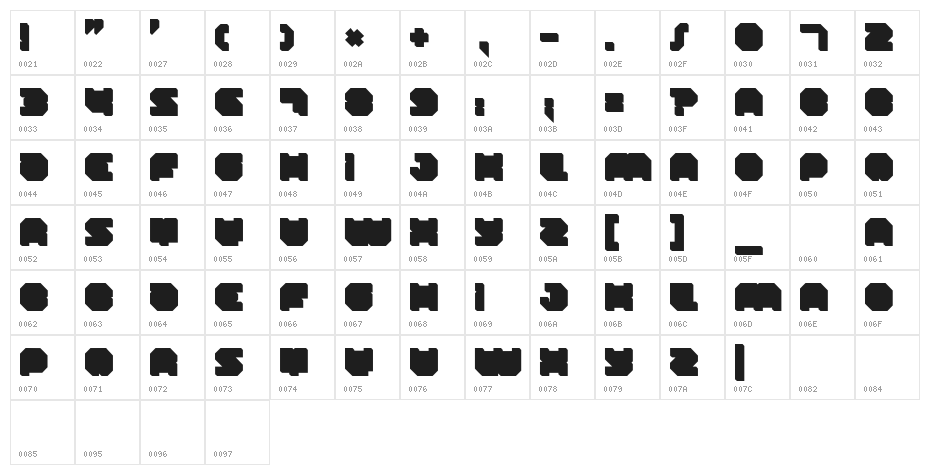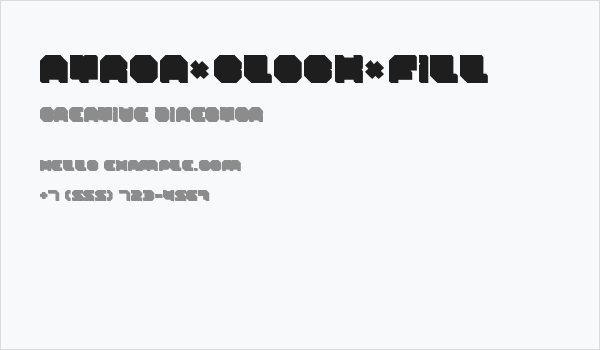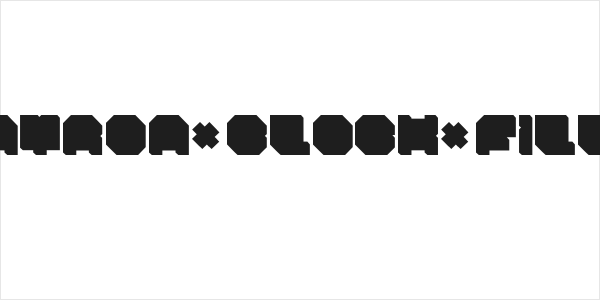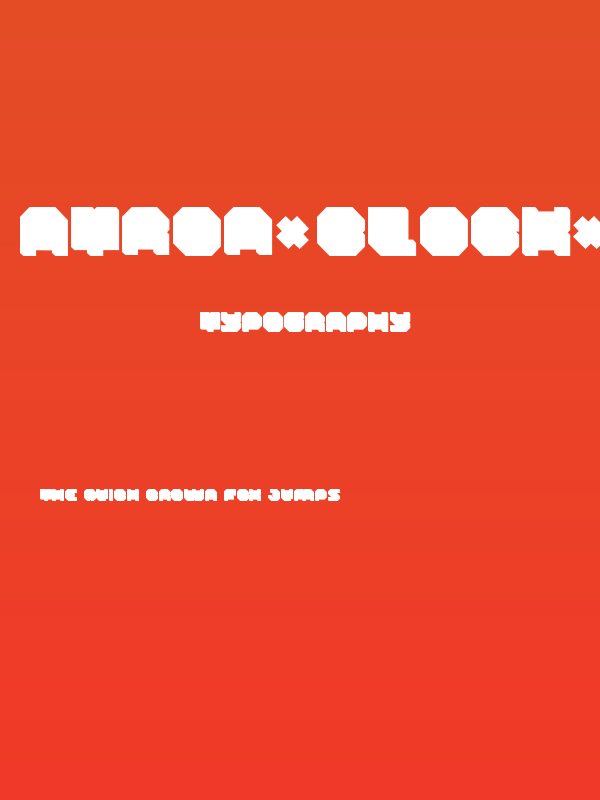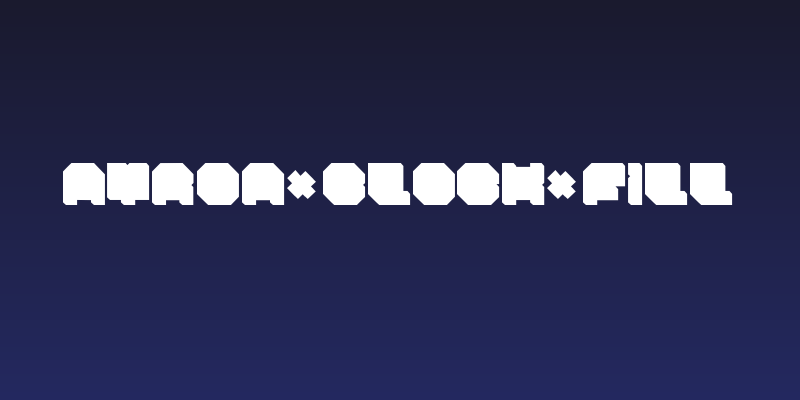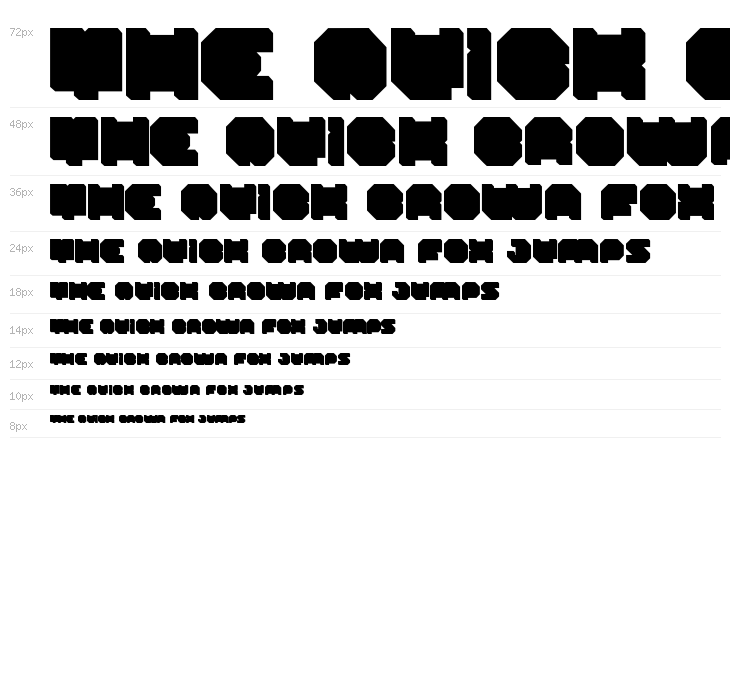
ATRON*BLOCK*FILL Font
ATRON*BLOCK*FILL Description
This font features a bold, geometric design with blocky, angular shapes. Each character is constructed with a consistent thickness, creating a uniform and cohesive appearance. The edges are sharply defined, giving it a modern and industrial feel. The uppercase and lowercase letters maintain a similar structure, enhancing readability while preserving the unique style. Numbers and special characters follow the same design principles, ensuring a seamless integration across all text elements. The font's distinct style makes it ideal for attention-grabbing displays.
Proposed ProjectsIdeal for posters, logos, branding, and any project requiring a strong visual impact.